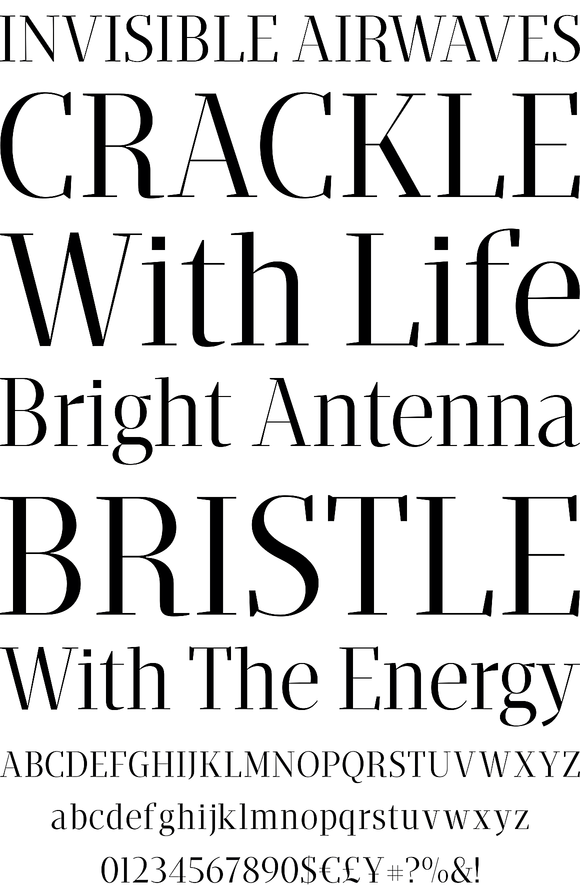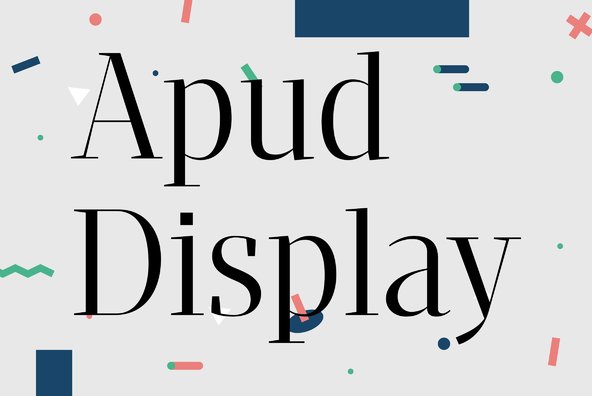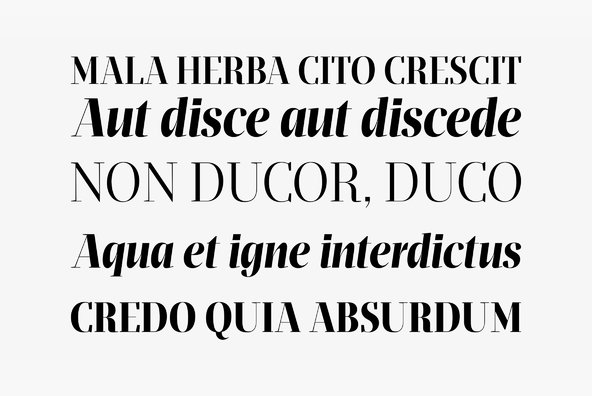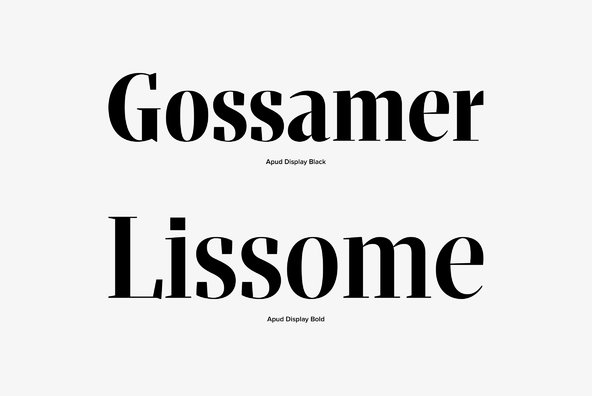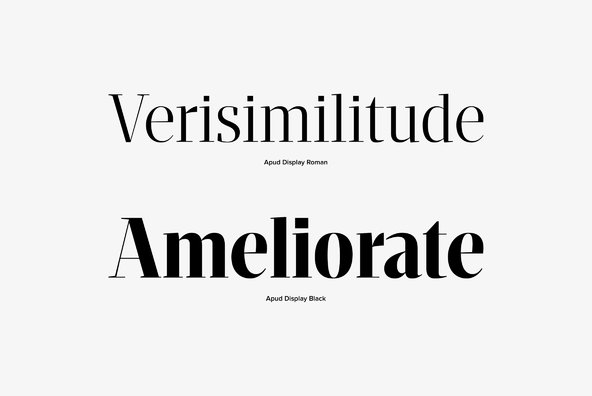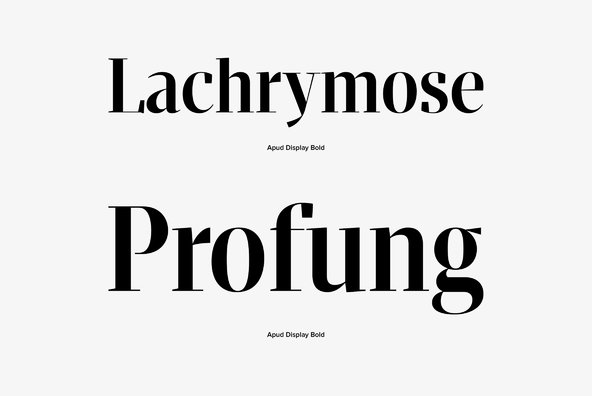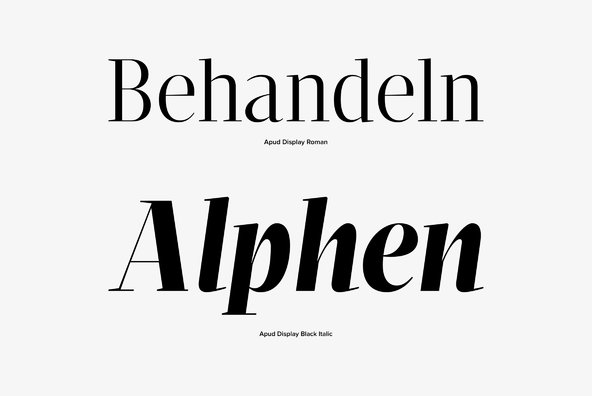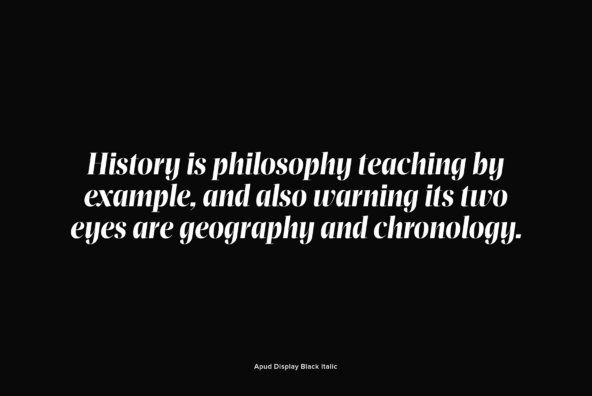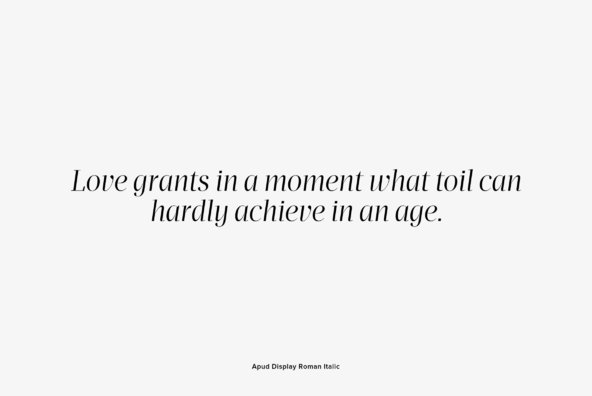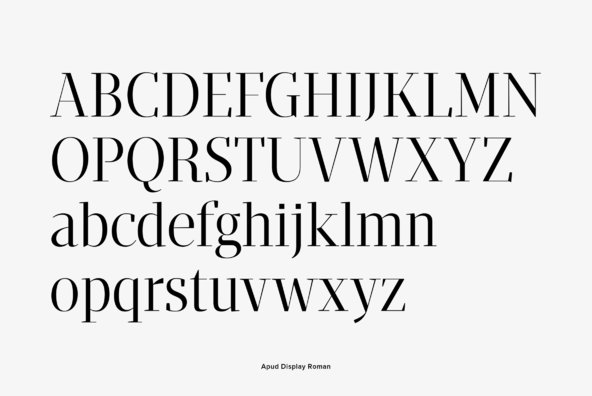
Apud Display
Foundry: DSType
Apud Display is the perfect companion for Apud. With it’s refined high contrast and sharpness, Apud Display has the vitality and rigorousness of the modern types, every time you need your display setting to shine.